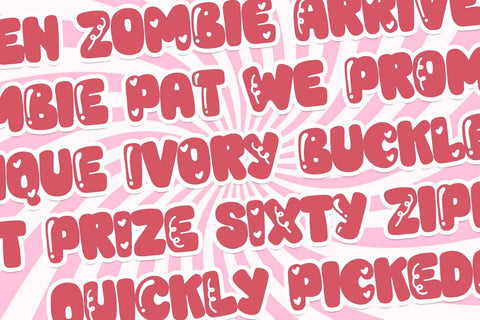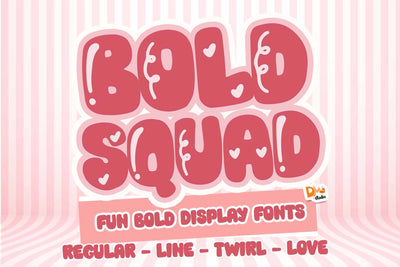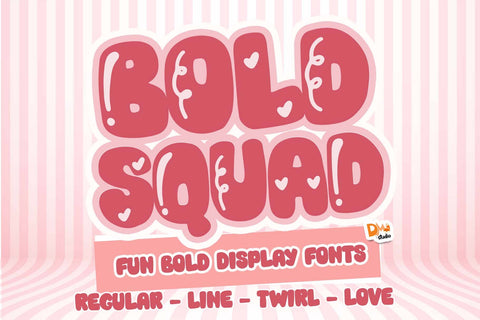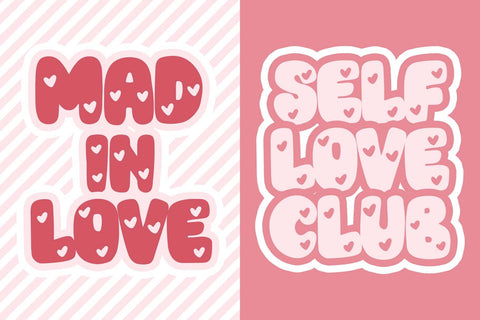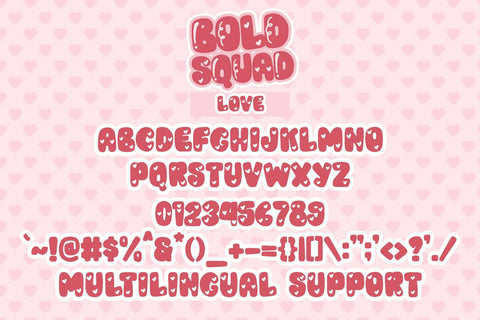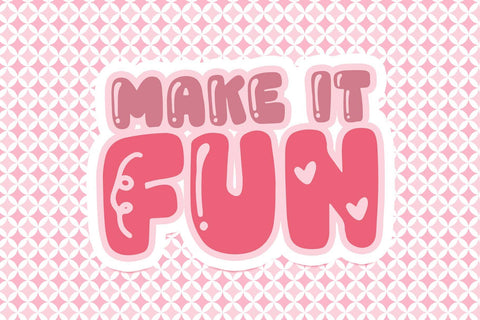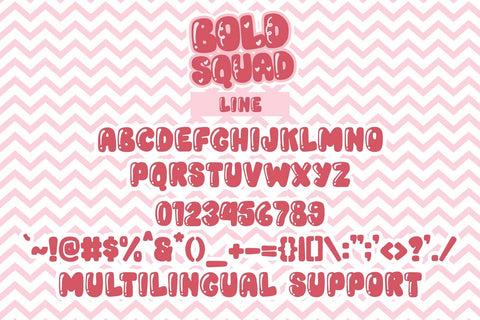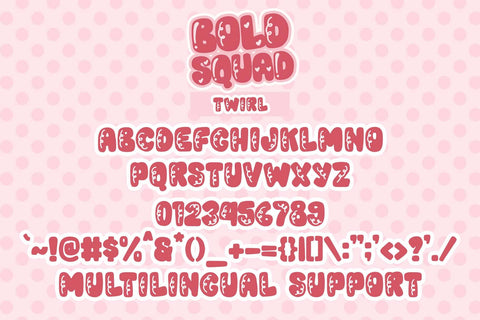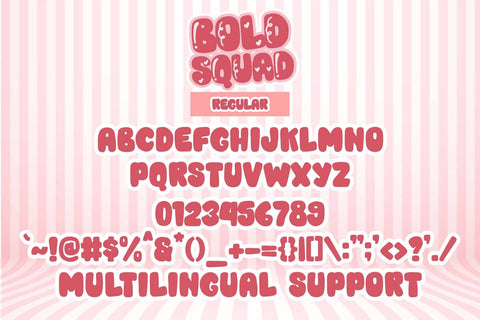
Bold Squad Font
Bold Squad Font is a dynamic and versatile typeface designed to make a bold statement in your creative projects. With its strong letterforms and commanding presence, this font is perfect for branding, headlines, posters, and more. Elevate your designs with the powerful and impactful aesthetic of the Bold Squad Font.
- Dynamic and Versatile Design: The Bold Squad Font features strong and impactful letterforms that command attention and make a bold statement.
- Versatility in Application: Ideal for various design projects, including branding, headlines, posters, and more, adding a powerful and dynamic element to your creations.
- Uppercase and Lowercase Letters: Both uppercase and lowercase letters included for creative flexibility.
- Punctuation and Symbols: Comprehensive set of punctuation marks, numerals, and symbols for consistent and versatile use.